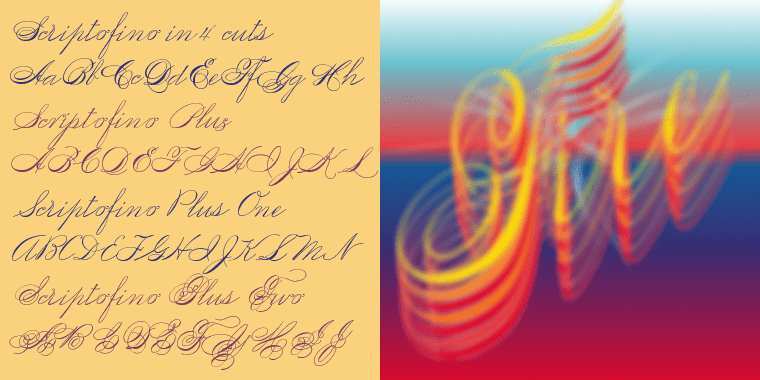
Scriptofino
Font Family by Wiescher Design
Scriptofino is a very fine and elegant script with lots of contrast. It is based on traditional American letterforms of Jefferson's day.